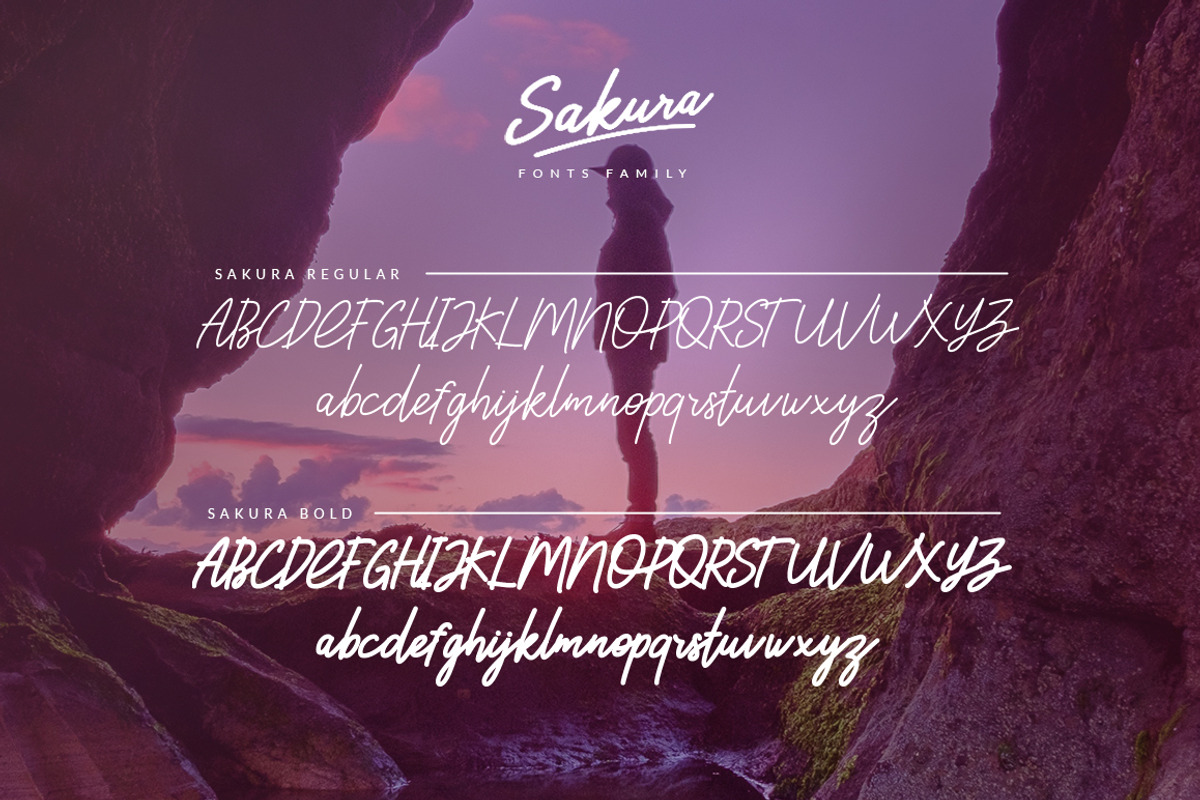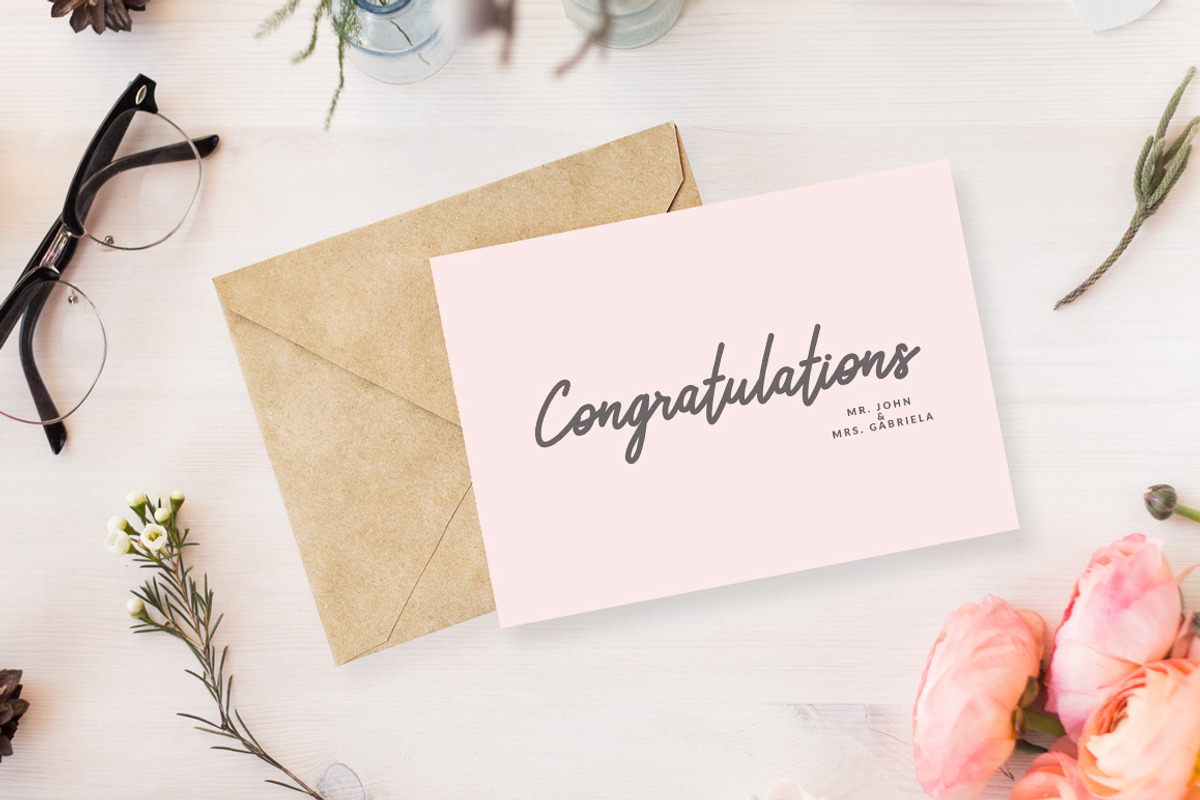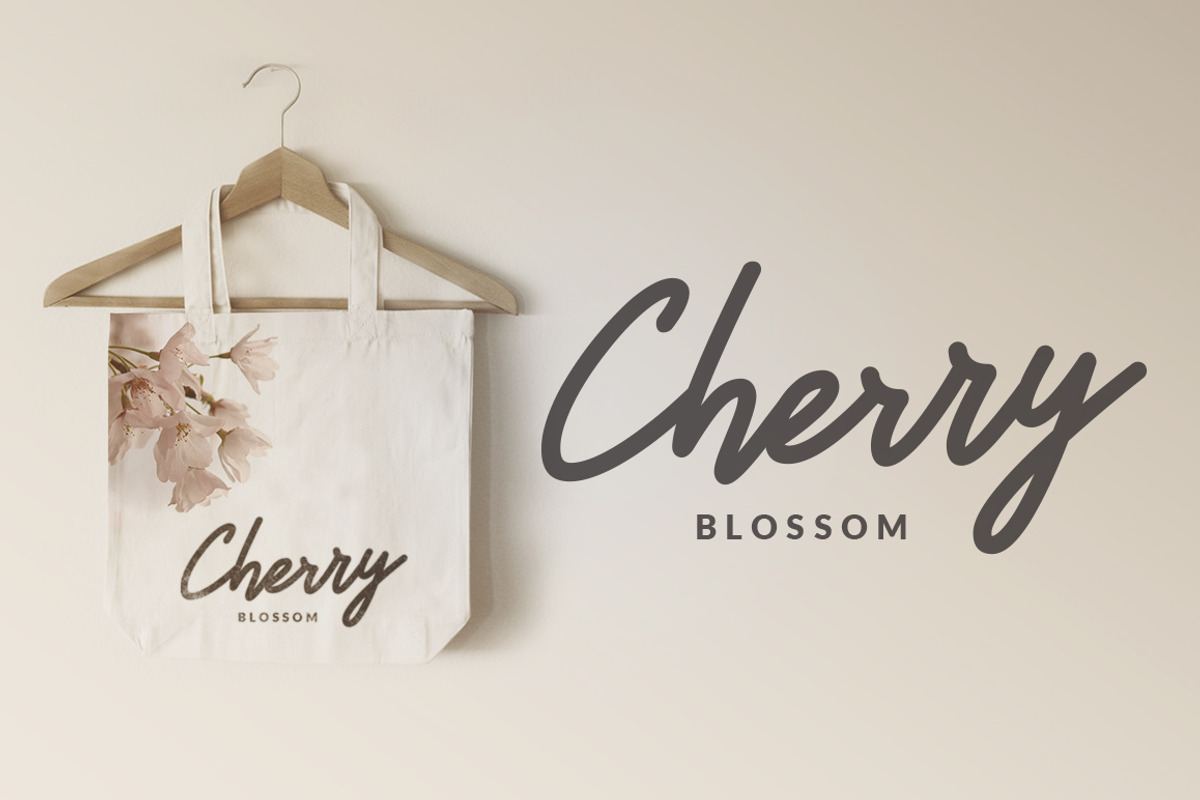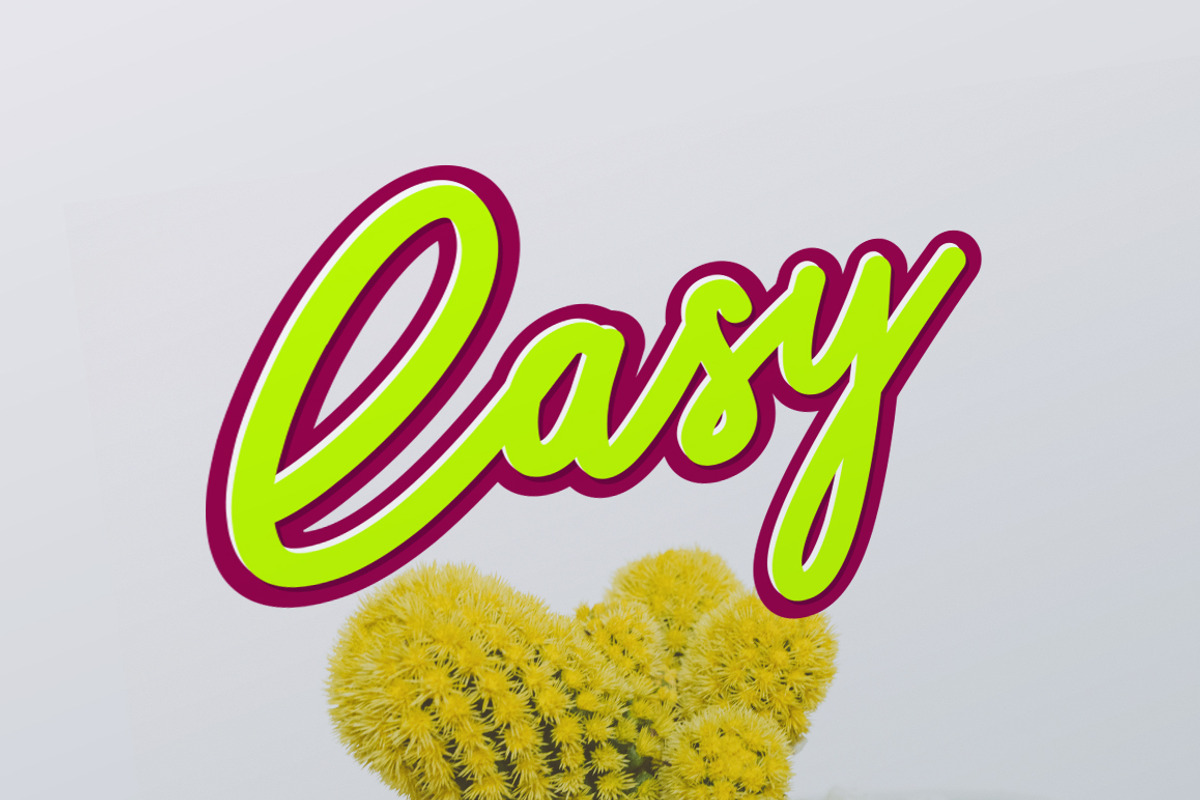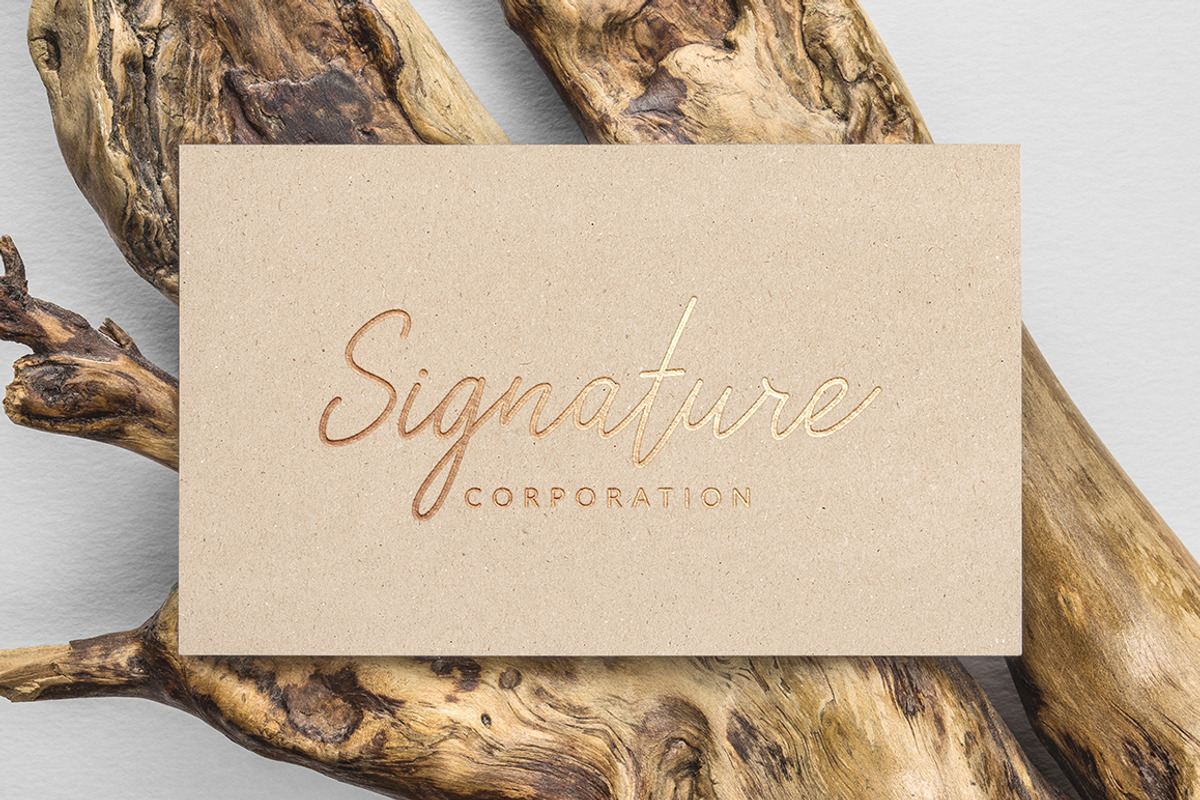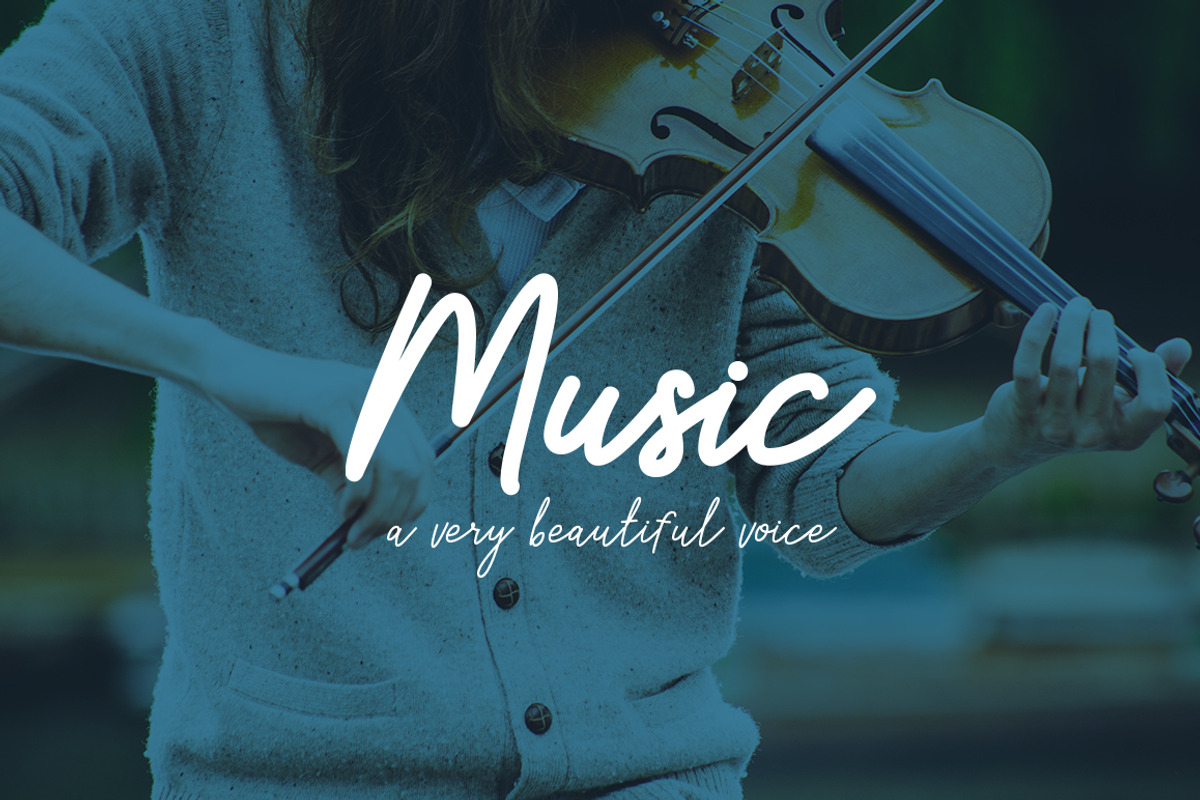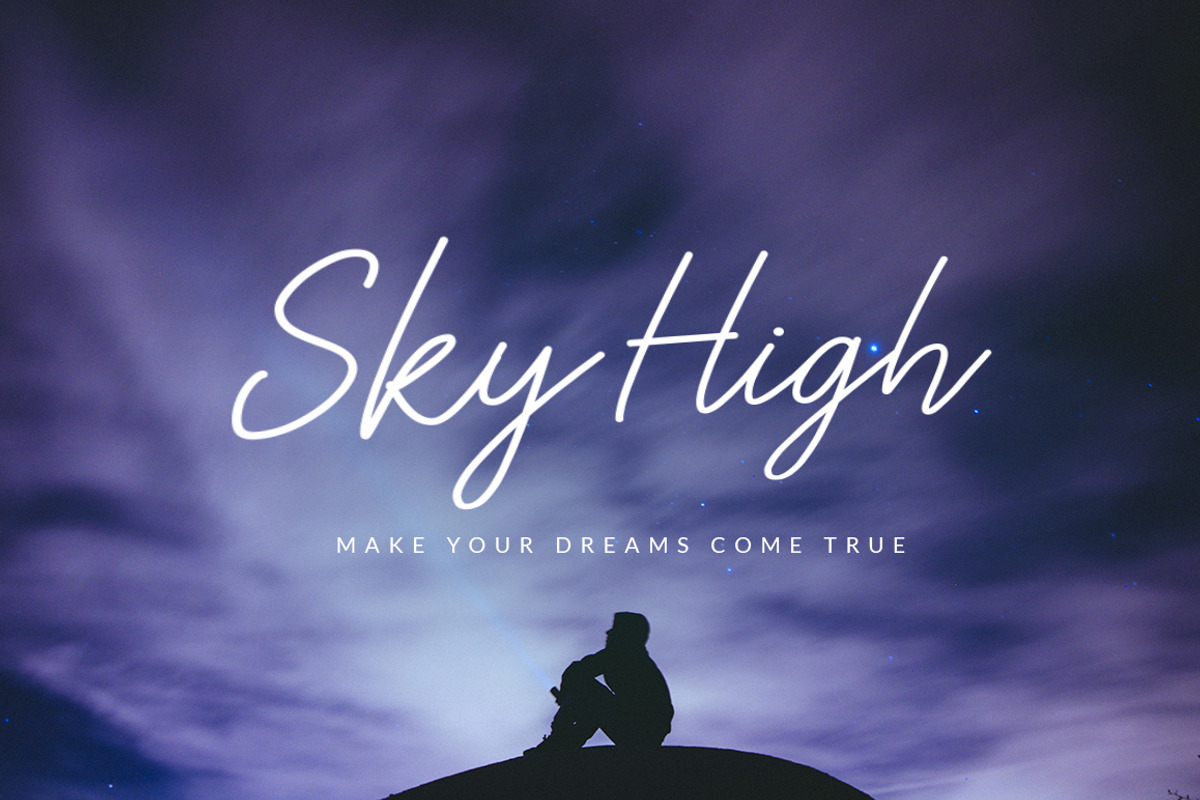
Sakura Font Family is A clean & classy signature-style font set, perfect for creating authentic hand-lettered text quickly & easily. With exaggerated strokes and an extra bouncy baseline, Sakura has an unmistakable charm; perfect for logos, headers, company or personal branding, product packaging, cards & handwritten quotes.